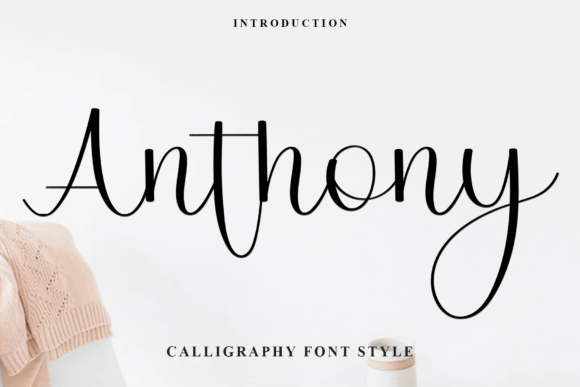
The Magic of Anthony Font: A Festive Holiday Typeface
Ah, the holiday season is upon us, and as designers, crafters, and creative hobbyists, we’re always on the lookout for that perfect font to capture the spirit of the season. I recall a particularly stressful design moment when I was working on a client’s holiday card project, and I just couldn’t find the right font to match their festive and merry vibe. That’s when I stumbled upon Anthony Font, and it instantly became my go-to typeface for all things holiday.
A Personal Review: What I Love About Anthony Font
So, what makes Anthony Font so special? Here are a few things that I absolutely love:
- ✨ Festive and merry vibe: Anthony Font perfectly captures the essence of the holiday season with its decorative elements and whimsical flair.
- ✅ Whimsical and nostalgic ambiance: This font adds a touch of enchantment to your designs, making them perfect for greeting cards, gift tags, and holiday-themed projects.
While Anthony Font is an amazing typeface, there are a few small quirks to keep in mind:
- ⚠️ Limited use outside of holiday projects: Let’s face it, Anthony Font is a highly specialized font that’s best suited for holiday-themed projects. It might not be the best choice for other design projects.
- 🤔 May require some experimentation: With so many glyphs and ligatures available, it might take some time to get familiar with the font and experiment with different combinations.
The story behind Anthony Font is one of passion and creativity. The designer, inspired by the magic of the holiday season, set out to create a font that would capture the essence of this special time of year. With its decorative elements and whimsical flair, Anthony Font is the perfect typeface for adding a touch of enchantment to your designs.
| What is Anthony Font? | Anthony Font is a festive and merry typeface that’s perfect for holiday-themed projects. |